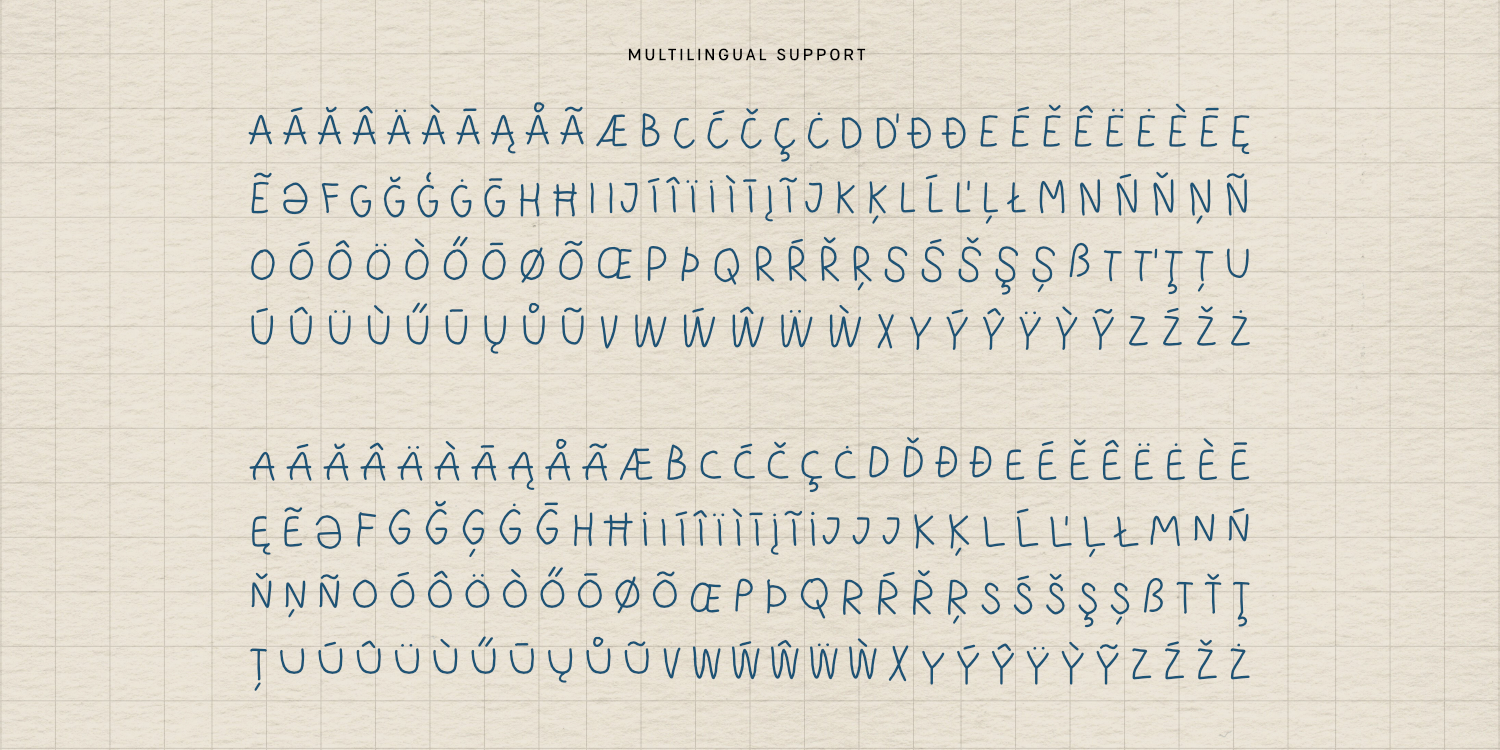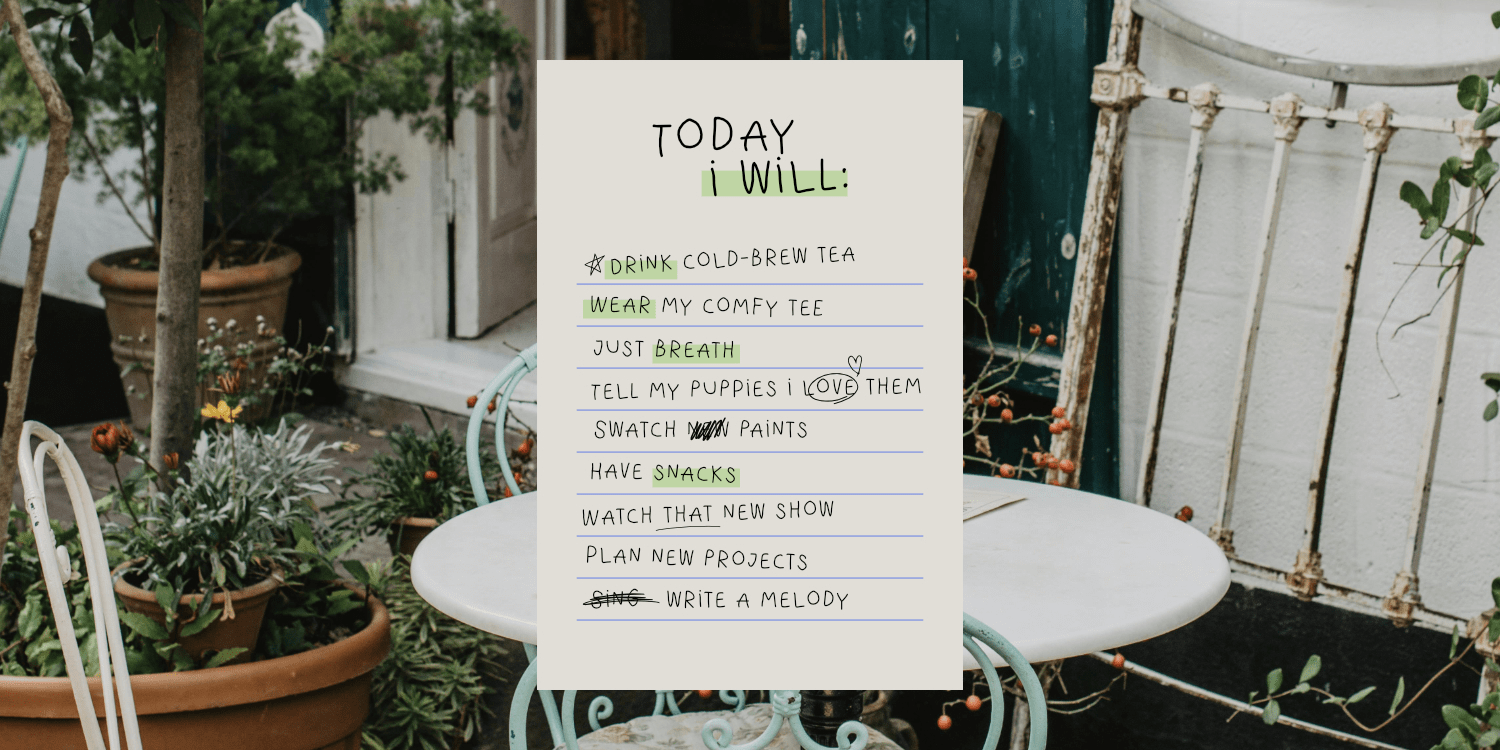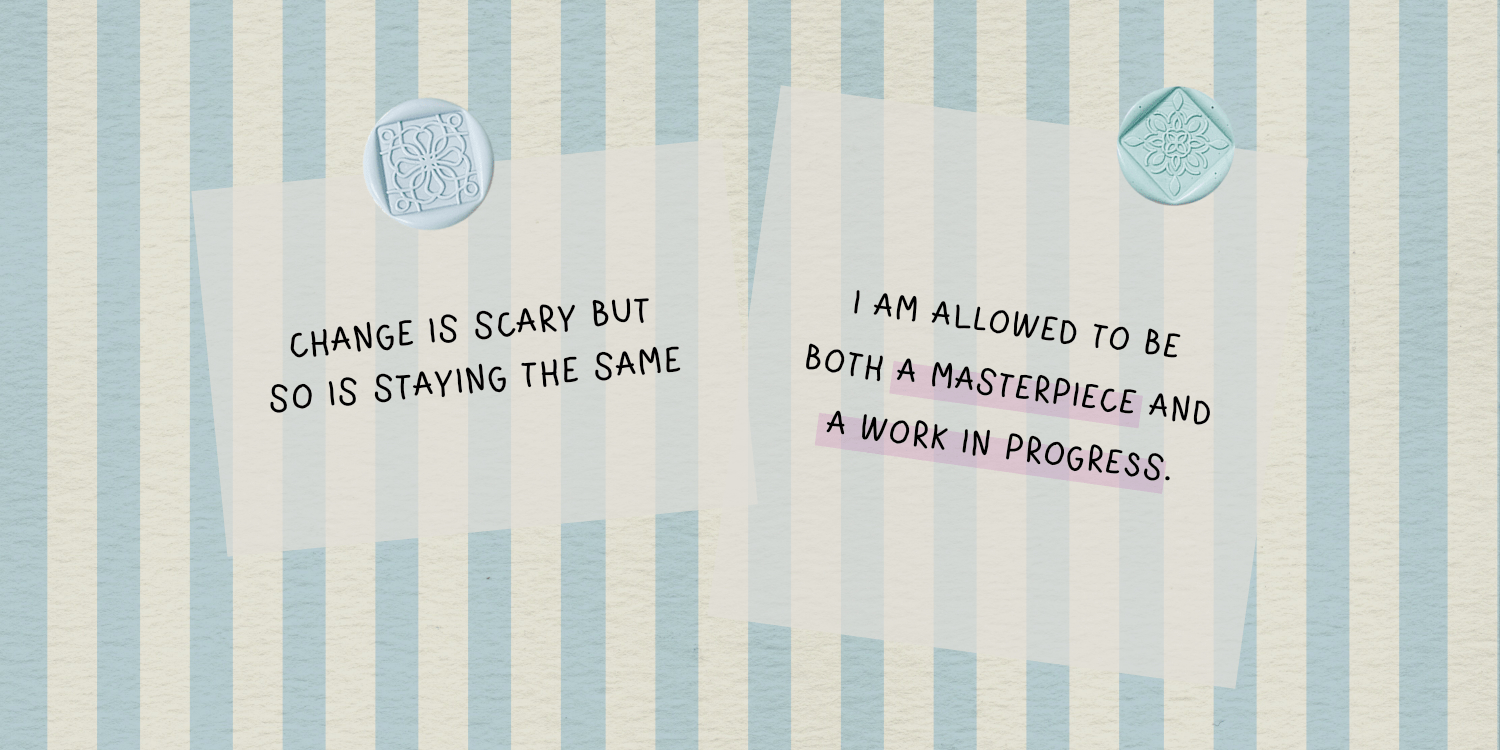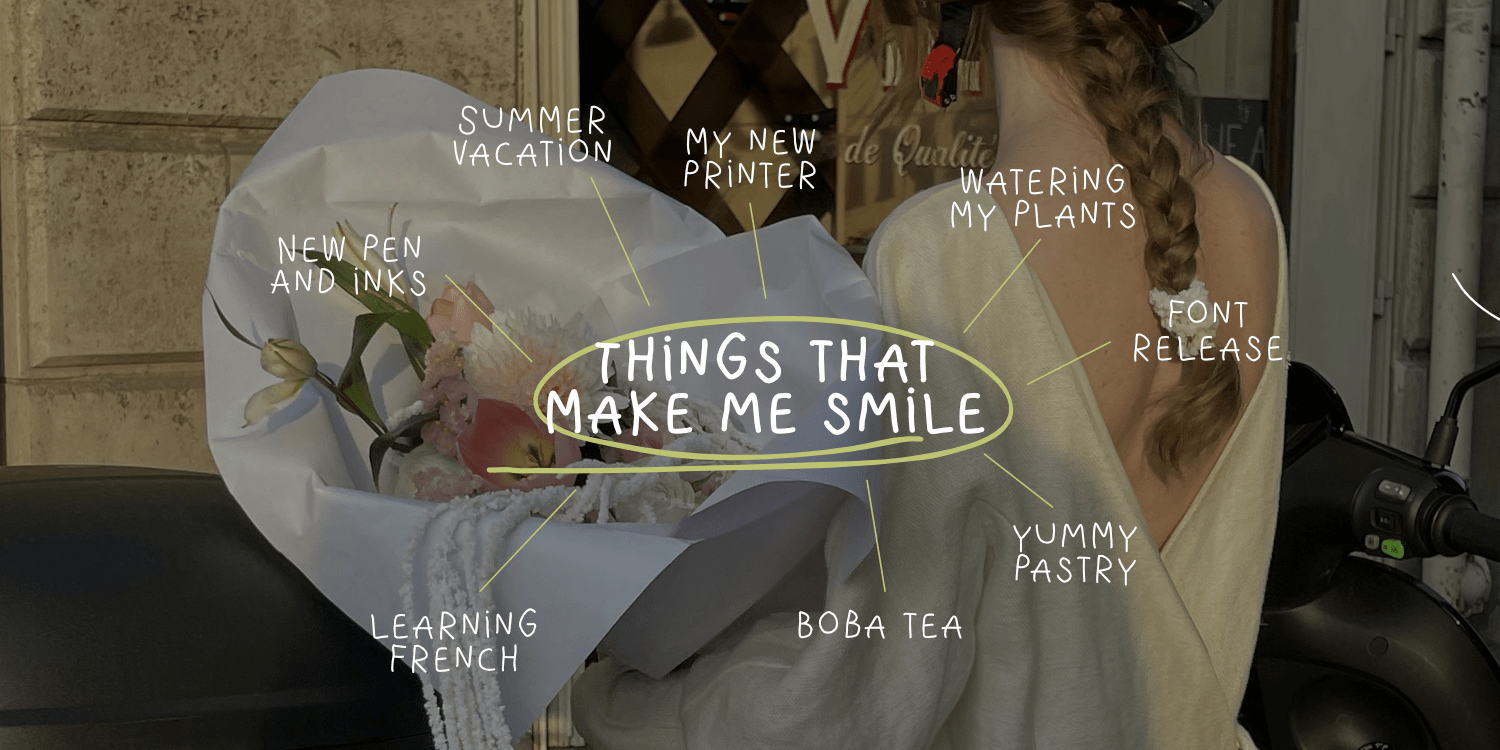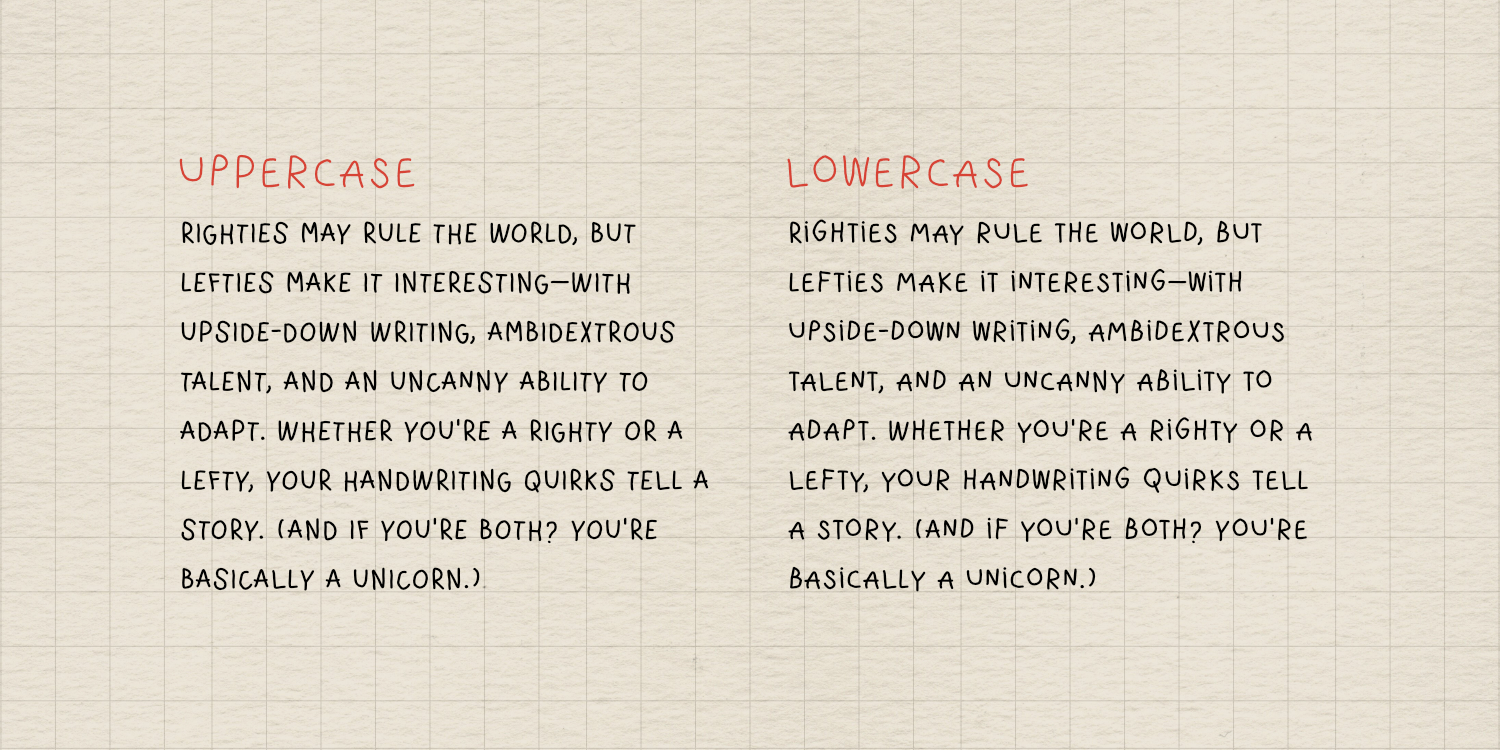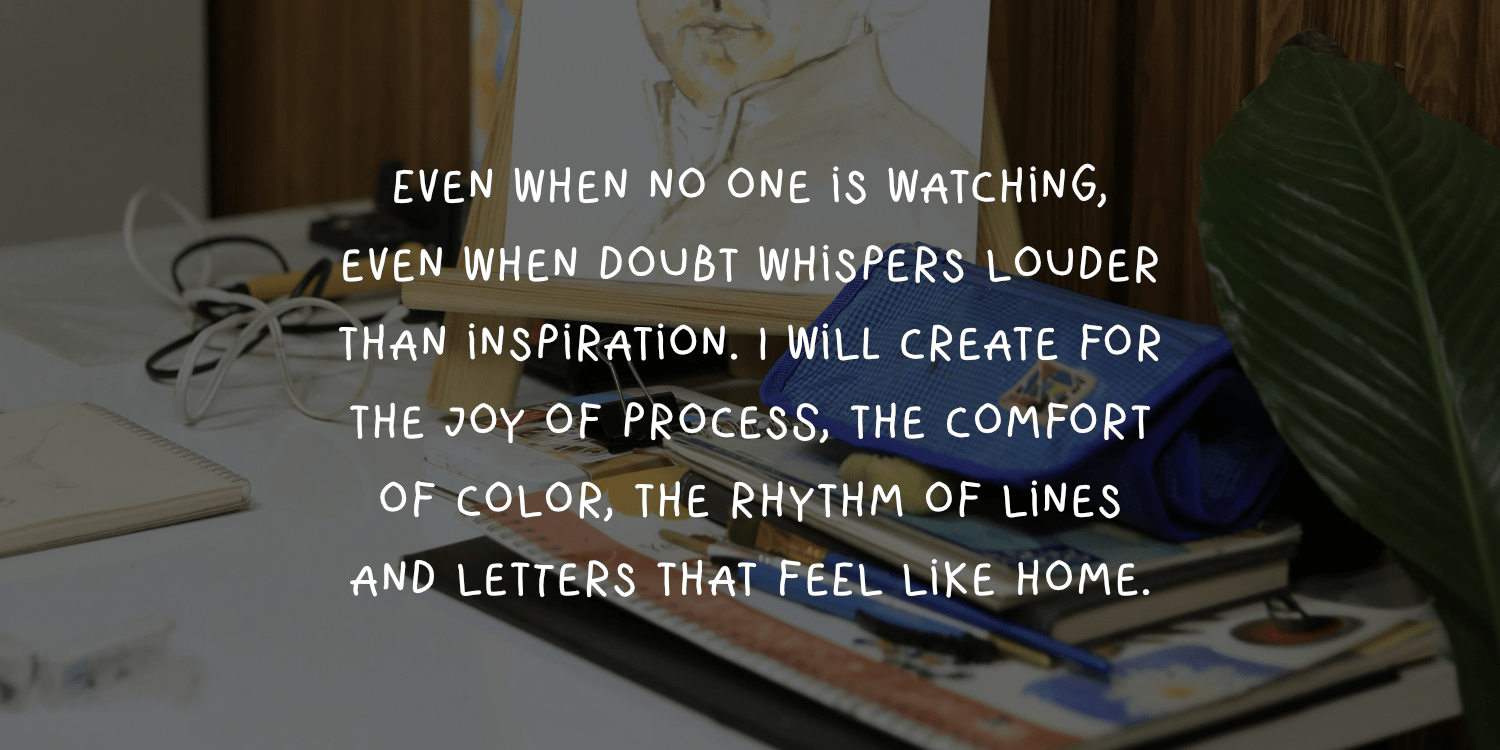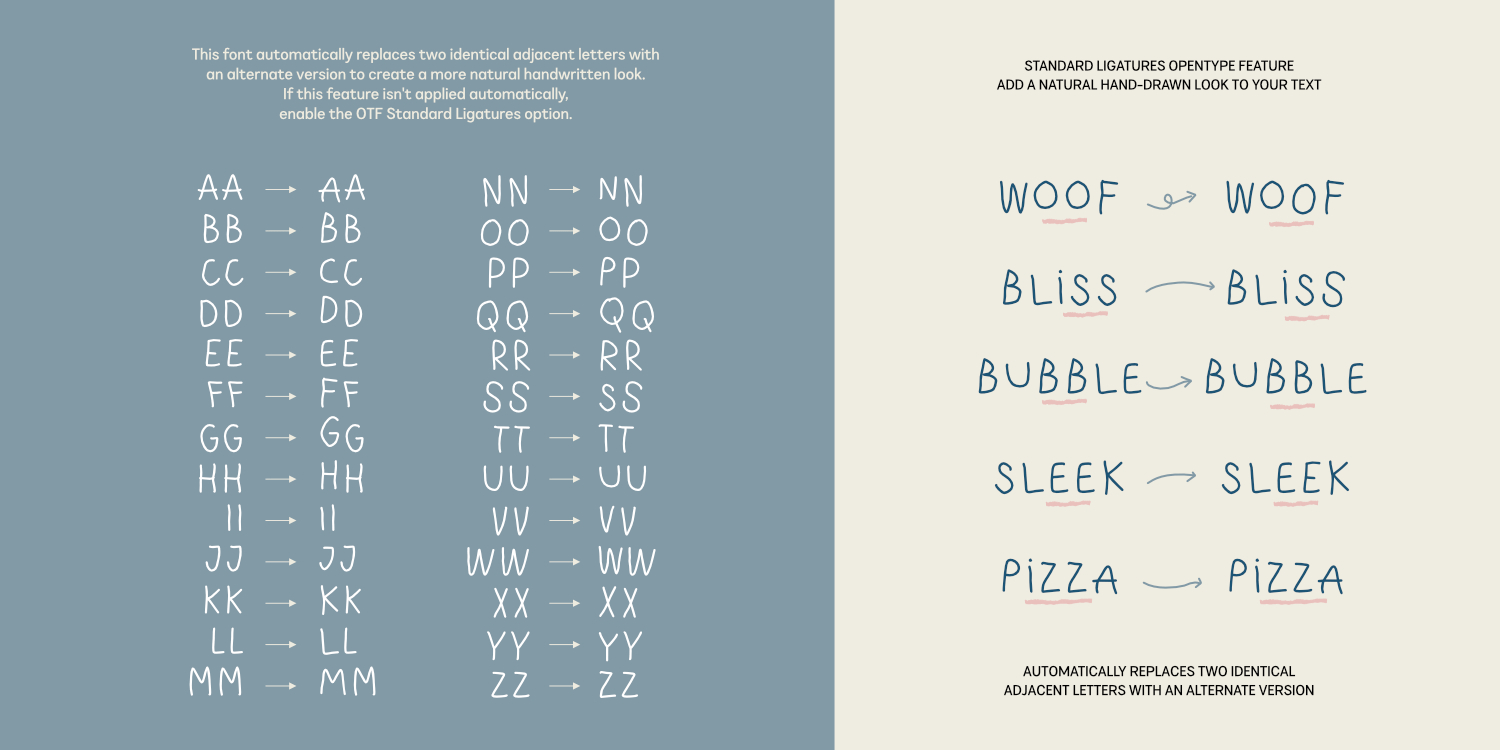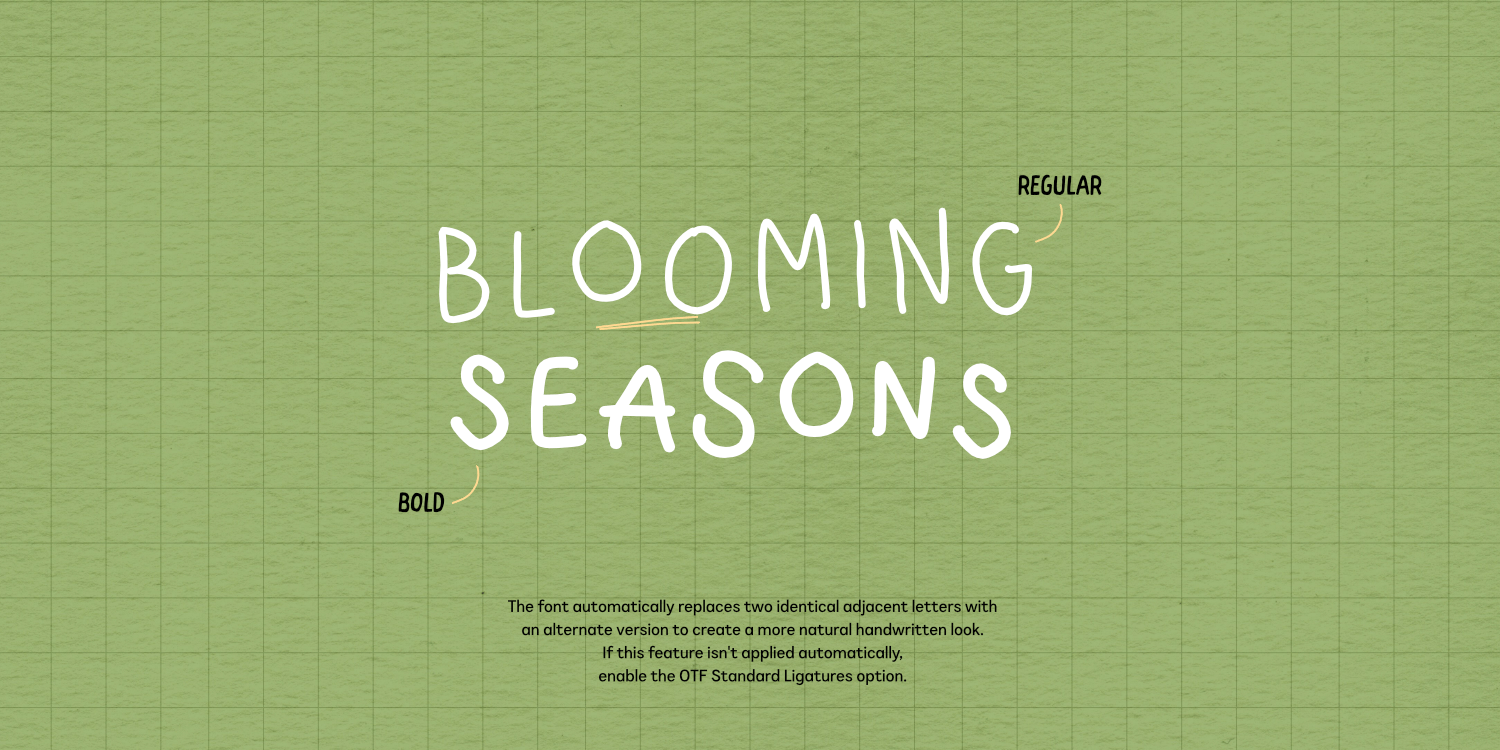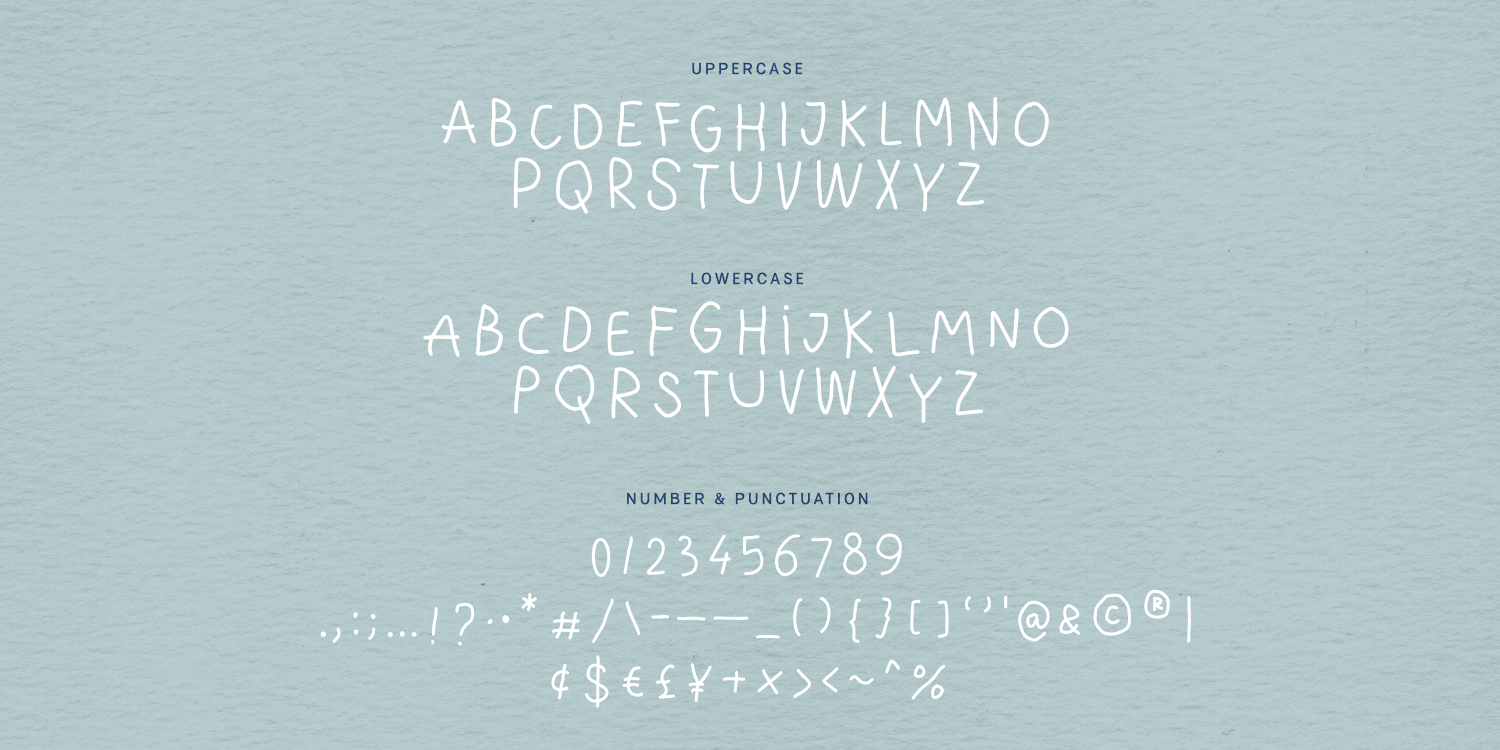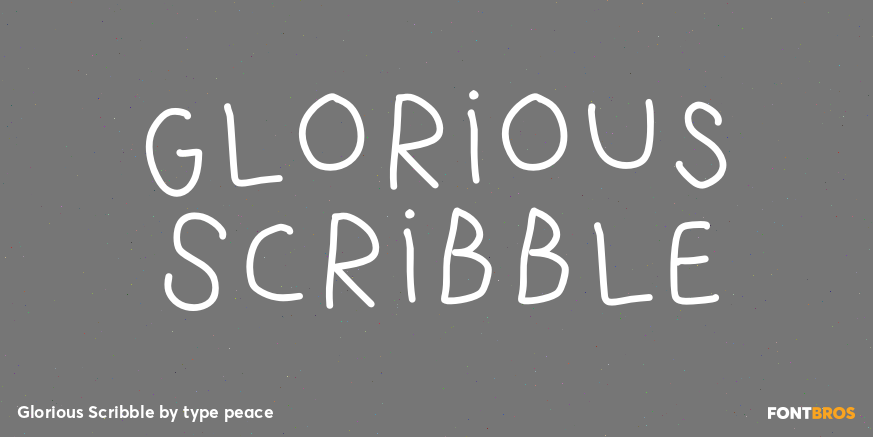
Glorious Scribble
Font Family by type peace
GLORIOUS SCRIBBLE is an odd handwritten font born when a right-handed designer gave the left hand a turn. The result? A playful, slightly messy character that adds charm to any project. Available in two weights (Regular and Bold) with multilingual support, it’s perfect for adding a touch of personality to your designs.
The font automatically replaces two identical adjacent letters with an alternate version to create a more natural handwritten look. (If this feature isn't applied automatically, enable the OTF Standard Ligatures option.)
Font features:
• All-cap
• 2 versions of each letter
• Numbers, marks and symbols
• Multilingual support
• Opentype features: Standard Ligatures
Script: Latin
Supported Languages: English, Western European, Central European, South Eastern European and more